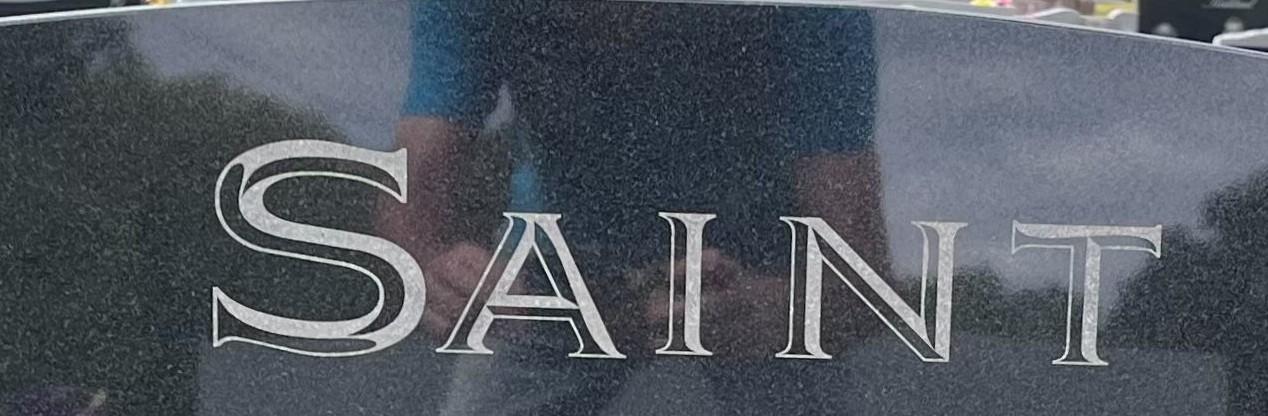
Font ID Home › Forums › Lettering and Font Identification › Font ID This topic has 1 reply, 2 voices, and was last updated 3 months ago by MLC. Viewing 2 posts - 1 through 2 (of 2 total) Author Posts February 20, 2026 at 7:32 am #12517 mdolberryParticipant This appears to be laser etched but can you help ID this font February 24, 2026 at 11:37 am #12526 MLCKeymaster Good afternoon, this is a font with an embossed effect named Citation. Author Posts Viewing 2 posts - 1 through 2 (of 2 total) You must be logged in to reply to this topic. Log In Username: Password: Keep me signed in Log In